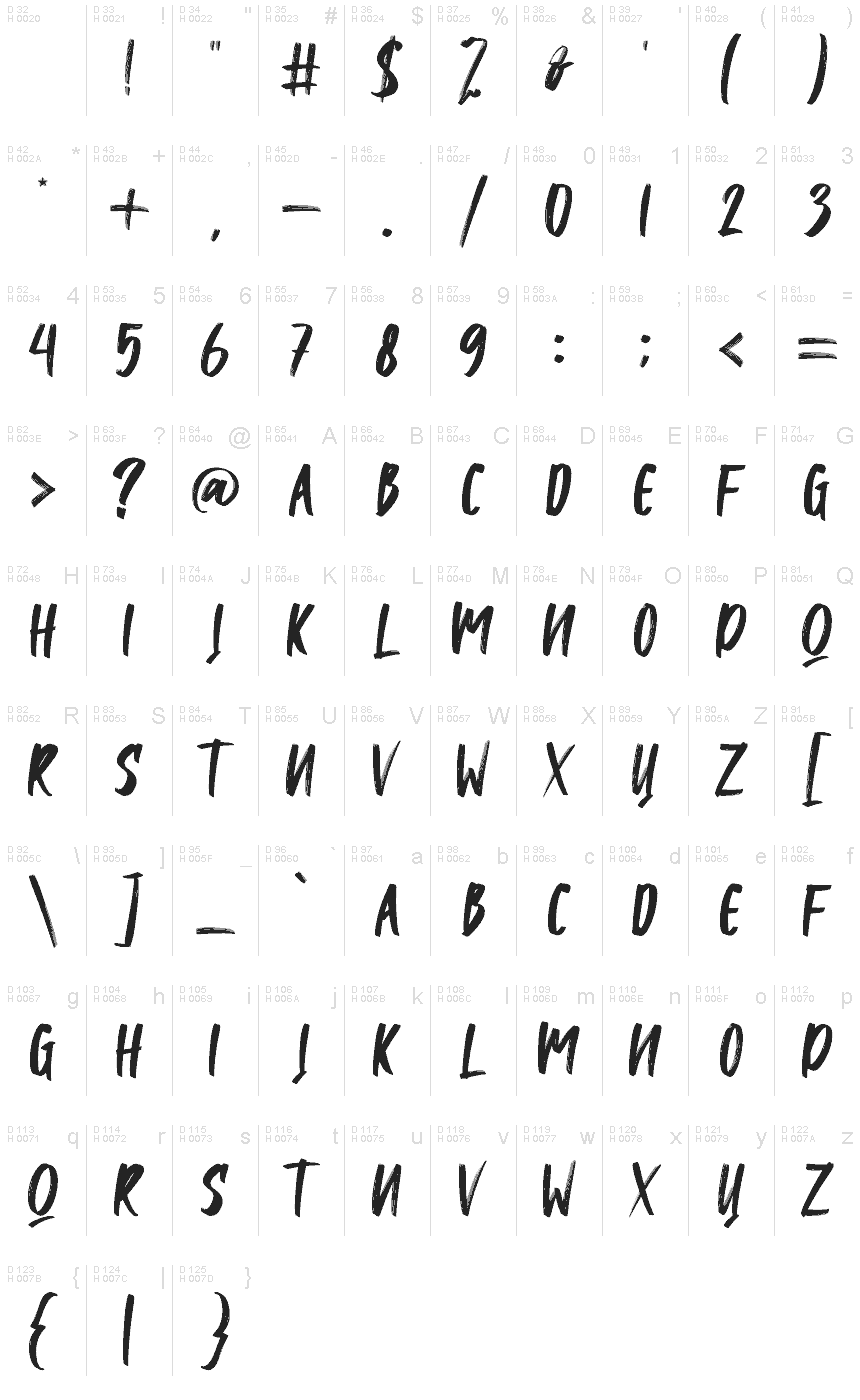
Markiss
Markiss font by Skiiller Studio is a condensed brush typeface with a lively and casual feel. Its hand-drawn appearance and textured brush strokes convey an artistic vibe and expressive character that grabs attention immediately.
Discover this free tool’s potential in apparel design, product packaging, book covers, art-related branding designs, music album covers, posters, headers, ads, titles…